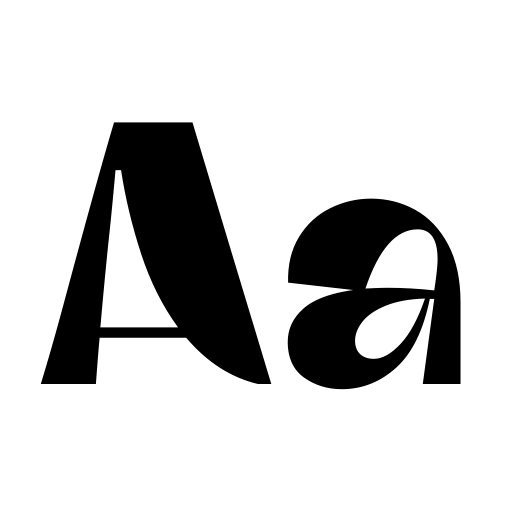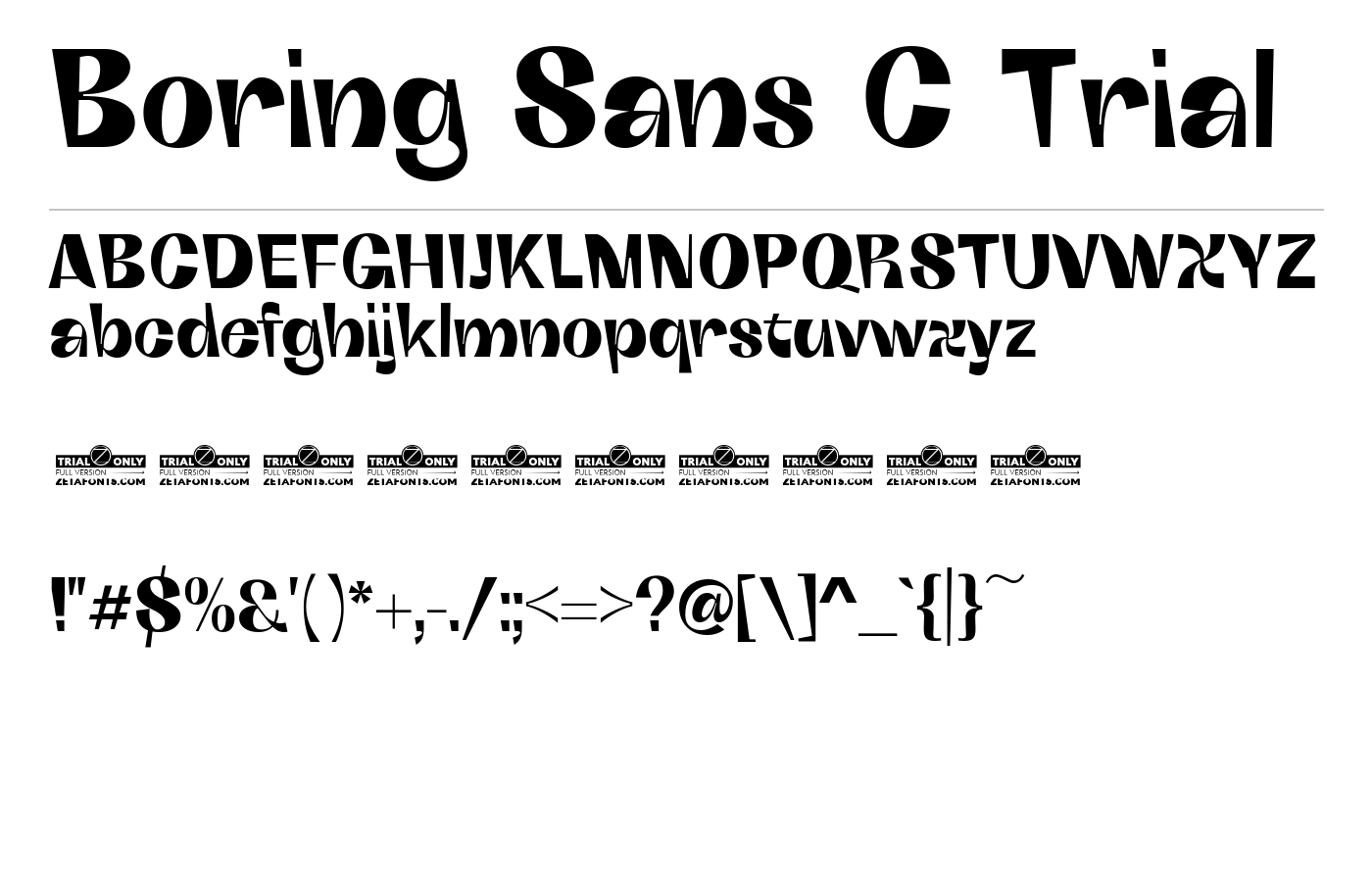
Boring Sans C Trial is a quirky sans serif font with playful, exaggerated shapes and uneven strokes that give it a lively, unconventional feel. Its mix of bold weights, varied letter widths, and unique character details make it perfect for creative projects and designs that want to stand out with a fun, energetic personality. This font works well in posters, branding, and headlines where a distinctive, artistic look is desired.
Boring Sans C Trial Font
About Boring Sans C Trial Font
| Designer | Cosimo Lorenzo Pancini |